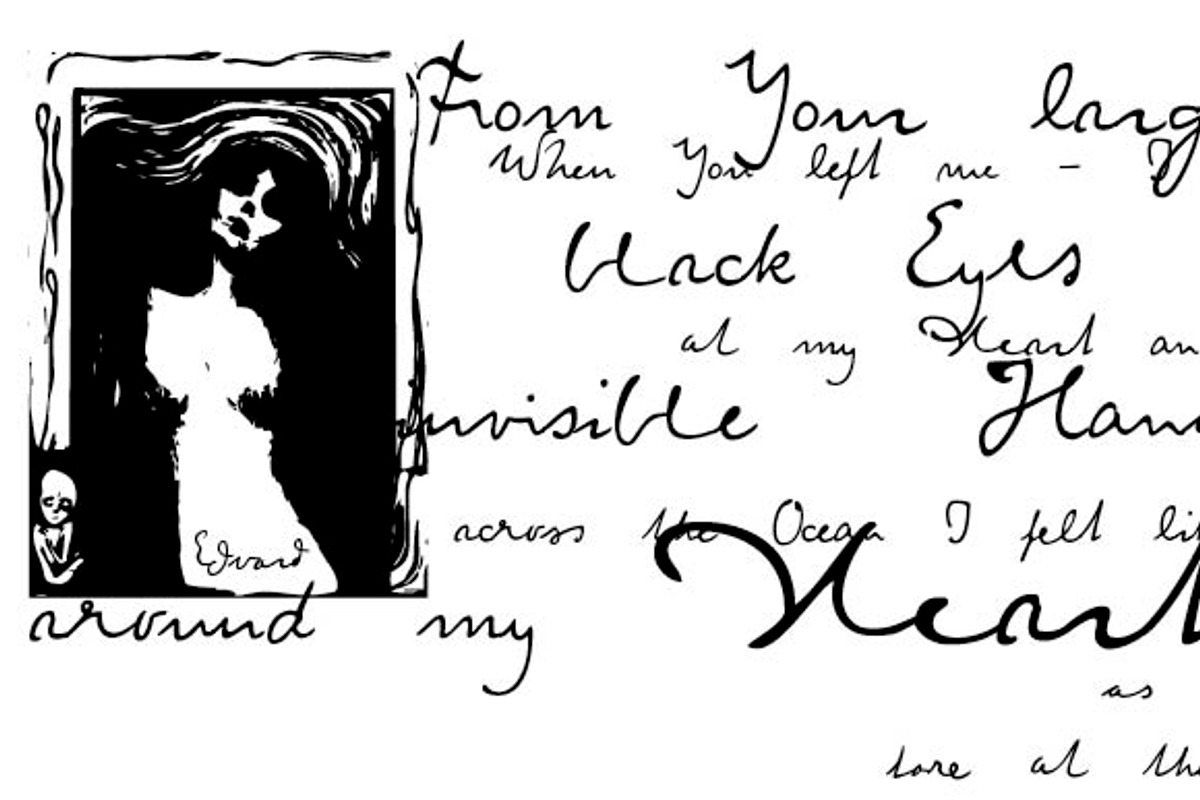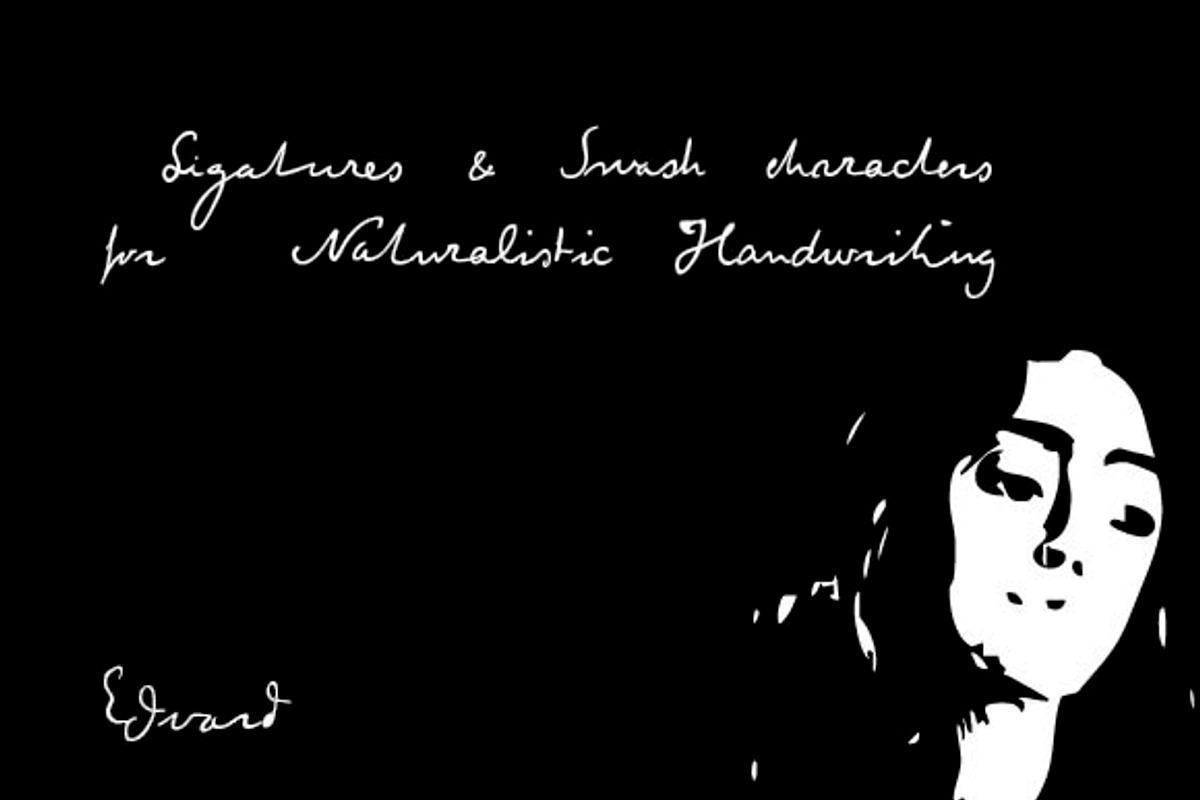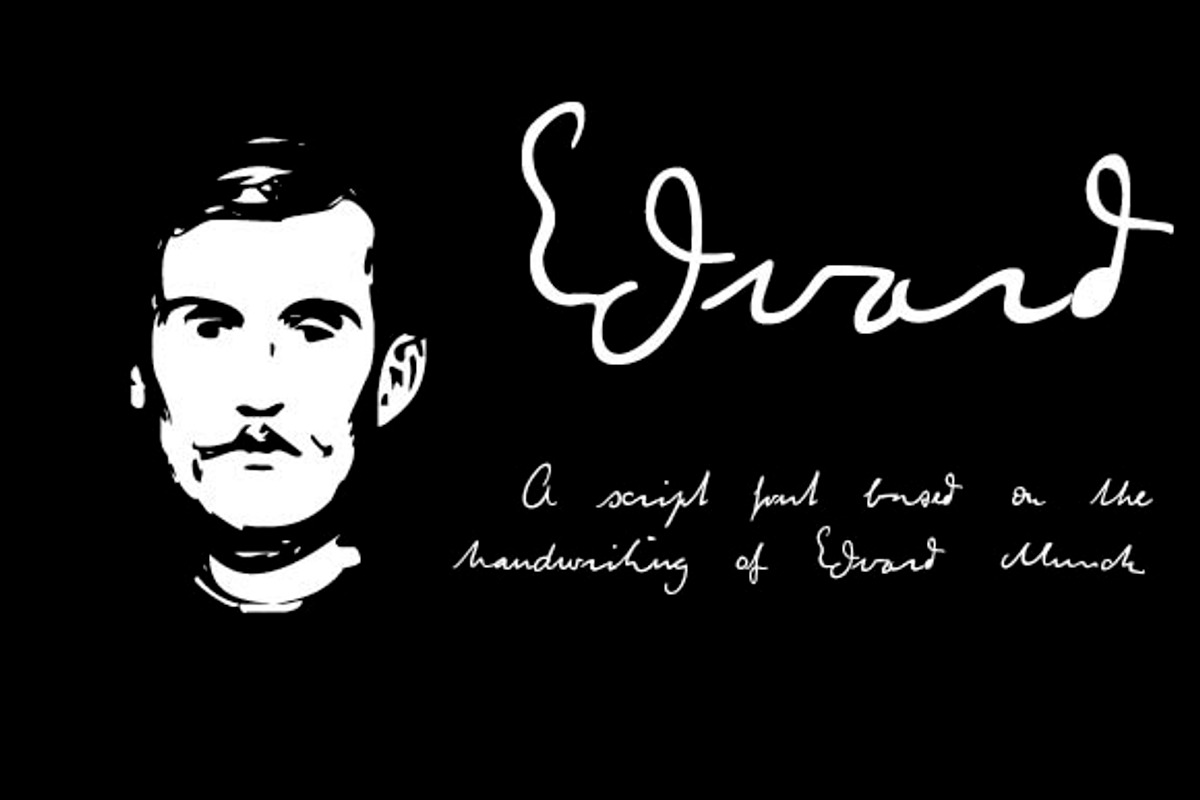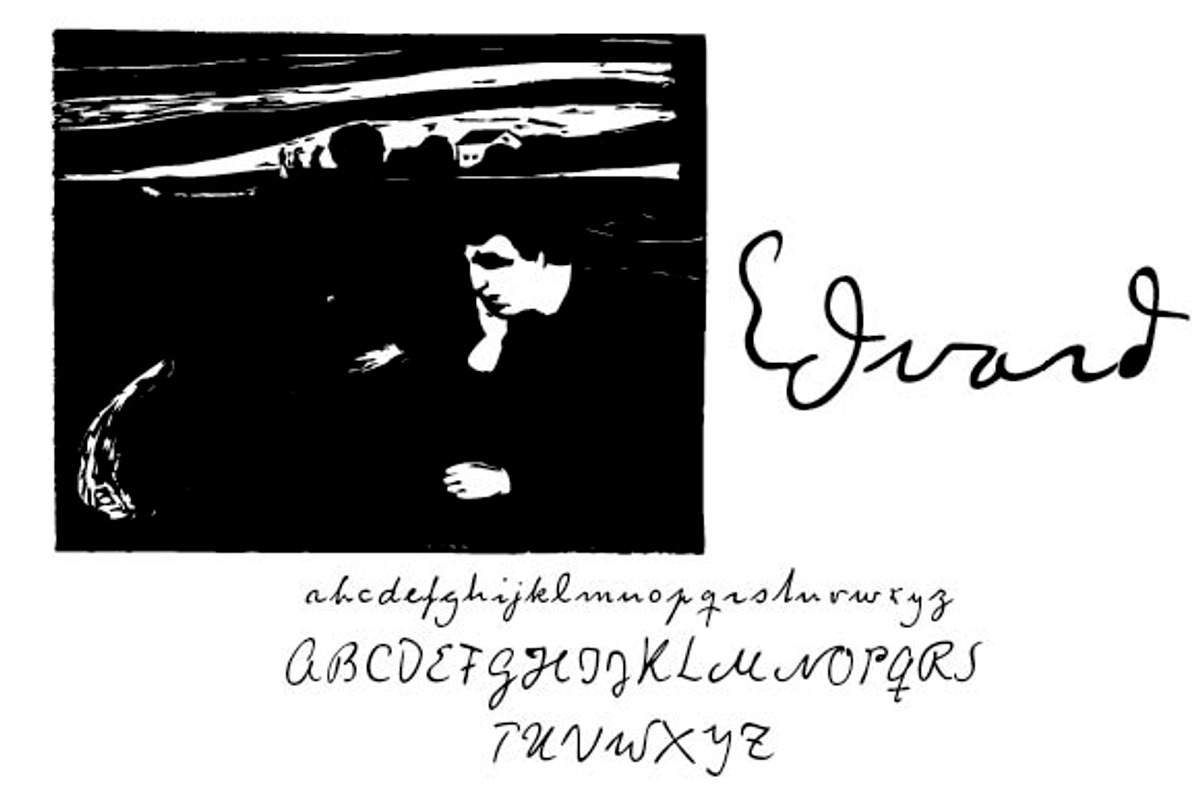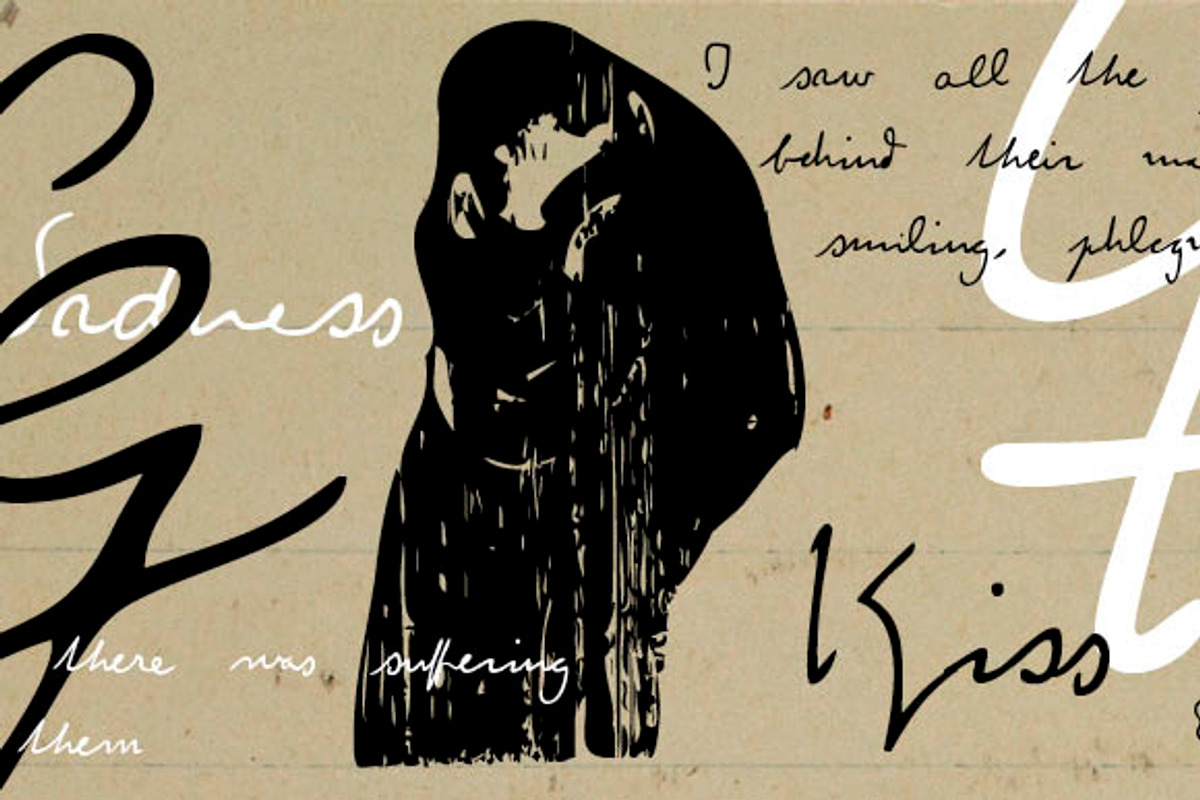
Edvard Font
Edvard Font by Julia Bausenhardt is a font selected for branding, posters, packaging, typography.
- To resemble naturalistic writing and remain as authentic as possible, a combination of extended ligatures and alternates has been included,
Edvard Font by Julia Bausenhardt fits naturally into Branding, posters, packaging, typography.